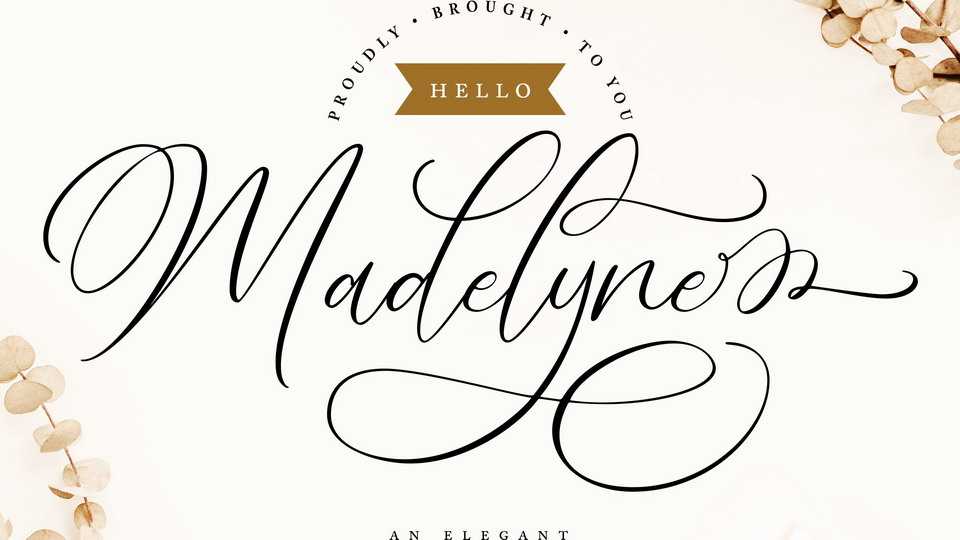
Download Hello Madelyne font, a romantic and beautiful handwritten font. Hello Madelyne looks adorable on personalized designs such as invitations, thank you cards, quotes, greeting cards, logos, business cards and so much more.